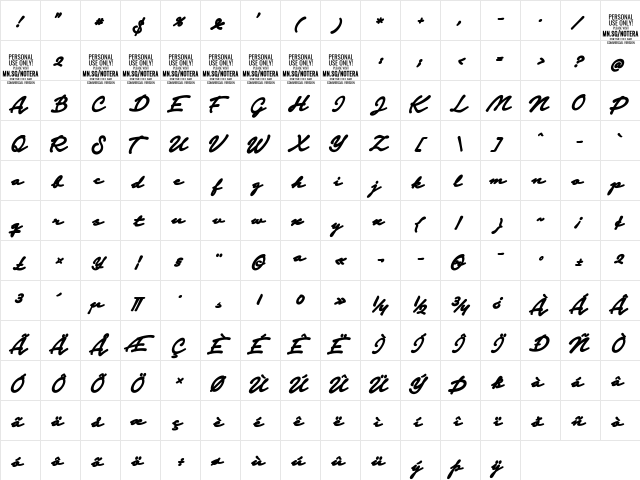
Notera 2 PERSONAL USE ONLY Black
Design Context for Notera 2 PERSONAL USE ONLY Typeface
Notera 2 PERSONAL USE ONLY is a composed and adaptable typeface that performs quietly and consistently across a wide range of design contexts.